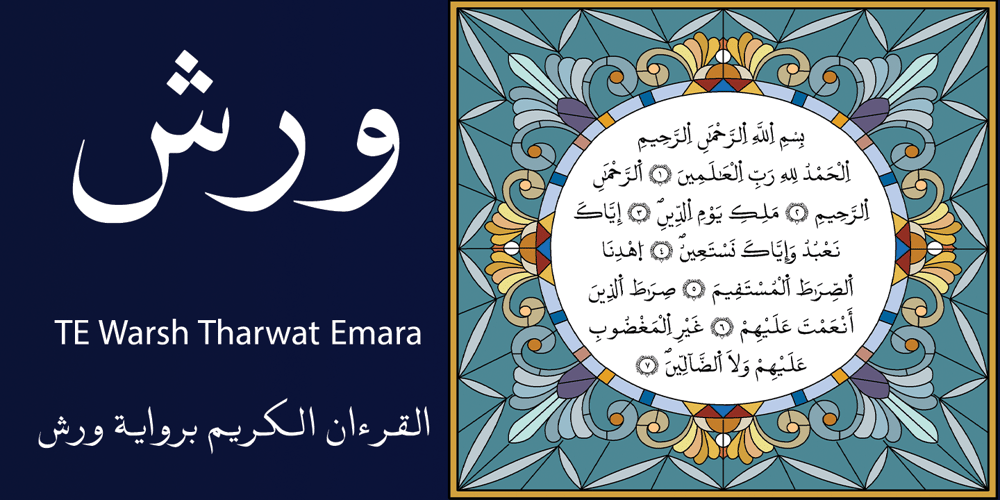
TE Warsh Tharwat Emara Font Family was designed by Tharwat Mohamed Emara and published by Tharwat Emara. TE Warsh Tharwat Emara contains 1 styles and family package options. Introducing “TE Warsh Tharwat Emara,” an exquisite Naskh font designed to elevate your typography to the next level. Our font features intricate calligraphic strokes, elegant curves, and graceful flourishes that bring a touch of sophistication and elegance to your text. Designed with the utmost attention to detail, every character in “TE Warsh Tharwat Emara” is beautifully crafted and easy to read.”TE Warsh Tharwat Emara” is perfect for typesetting the Holy Quran, with its beautifully crafted curves and strokes. The Naskh script is one of the most popular calligraphic styles used in Arabic typography and is known for its clarity, making it perfect for Quranic typesetting. With “TE Warsh Tharwat Emara,” you can create stunning, high-quality typography that is perfect for publishing the Quran, as well as other religious texts.In addition to its suitability for Quranic typesetting, “TE Warsh Tharwat Emara” is versatile and can be used in a variety of contexts. Its elegant and sophisticated design makes it perfect for book covers, posters, branding, and web design. “TE Warsh Tharwat Emara” supports a wide range of languages, including Arabic, Persian, Urdu, and many others, making it ideal for multi-lingual projects.”TE Warsh Tharwat Emara” includes a range of special features that take your typography to the next level. The font includes ligatures and alternate characters, which allow you to create more natural and fluid connections between characters. The alternate characters provide a variety of stylistic choices, giving you even more control over the typography.”TE Warsh Tharwat Emara” is compatible with a wide range of platforms and software, including Adobe Creative Suite, Microsoft Office, and many others. This means that you can use “TE Warsh Tharwat Emara” in your favorite design software, without worrying about compatibility issues.”TE Warsh Tharwat Emara” comes with a multi-user perpetual license, which allows you to use it for commercial and personal projects. The perpetual license means that you can use the font indefinitely, without having to worry about renewing your license. We also offer a range of licensing options, including a single-user license, to suit your needs.In conclusion, “TE Warsh Tharwat Emara” is a must-have for designers and typographers who are looking to create stunning, high-quality typography that is perfect for publishing the Holy Quran, as well as other religious texts. With its intricate calligraphic strokes, elegant curves, and graceful flourishes, “TE Warsh Tharwat Emara” will elevate your typography to the next level. It’s versatile, easy to use, and comes with a range of special features that make it perfect for all kinds of projects. So, whether you’re designing book covers, posters, or websites, don’t miss out on “TE Warsh Tharwat Emara.” Purchase now and experience the beauty of our Naskh font for yourself.